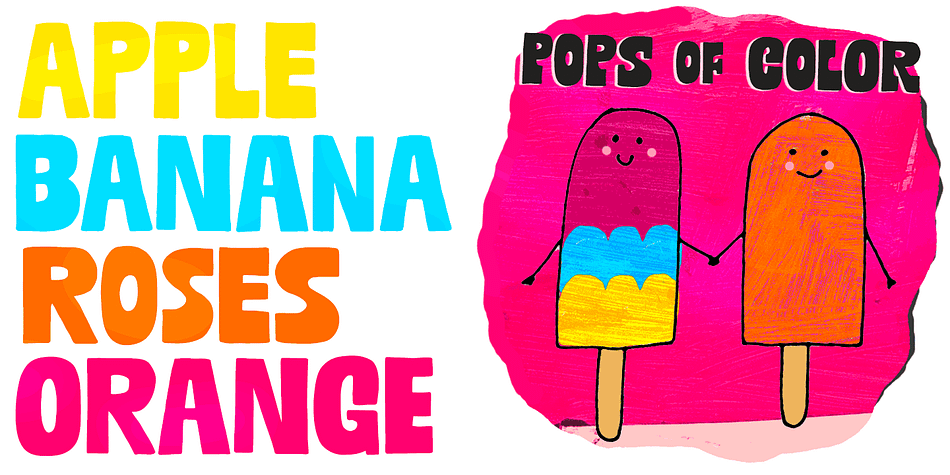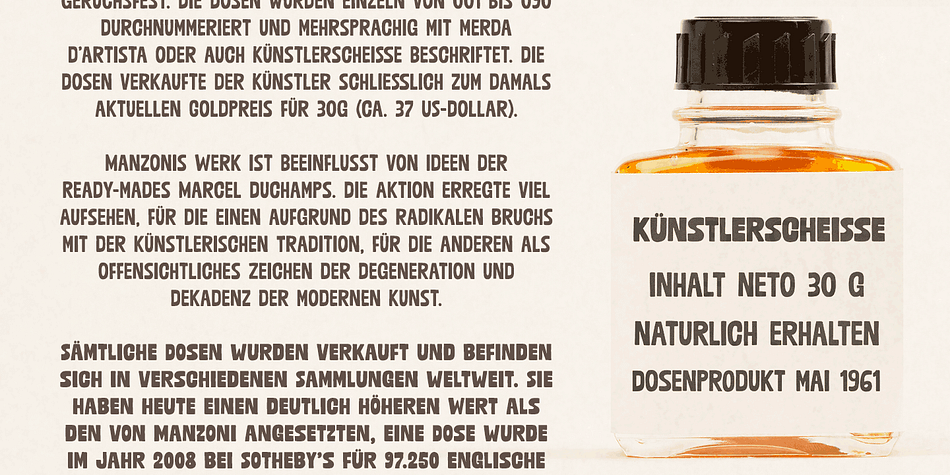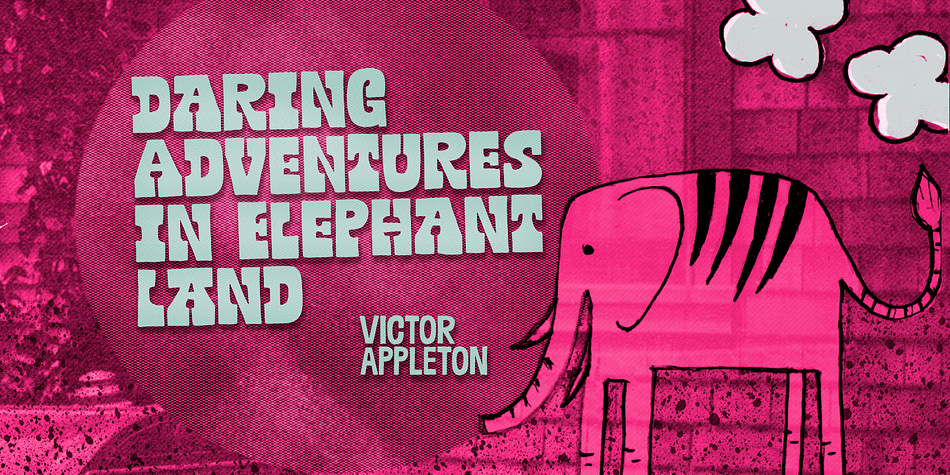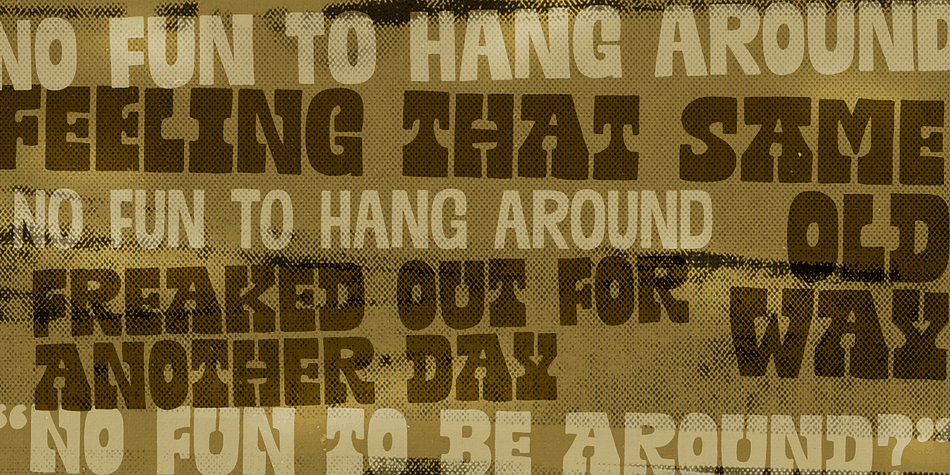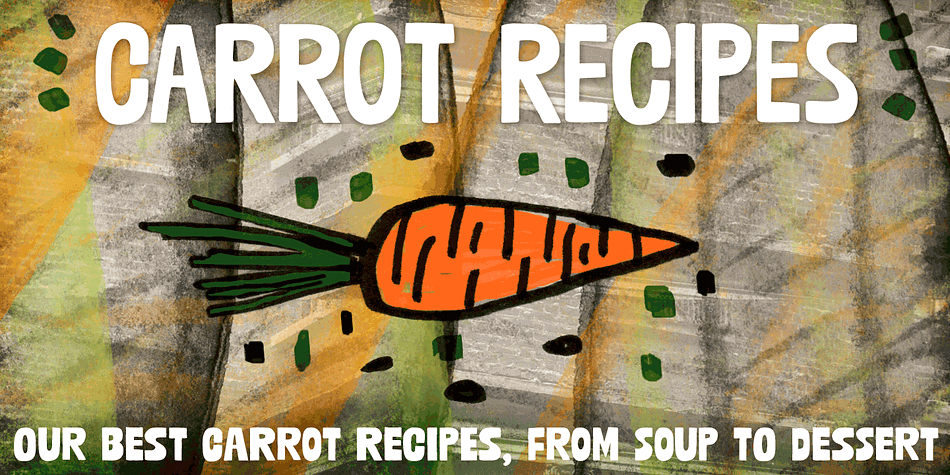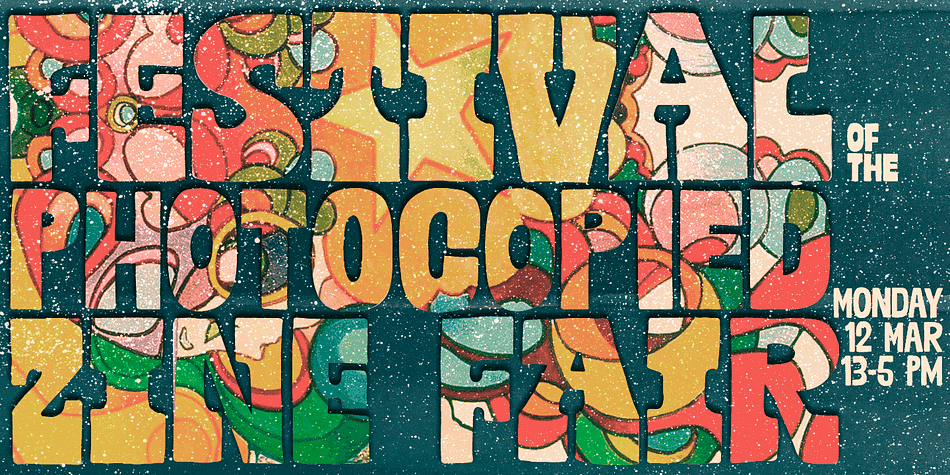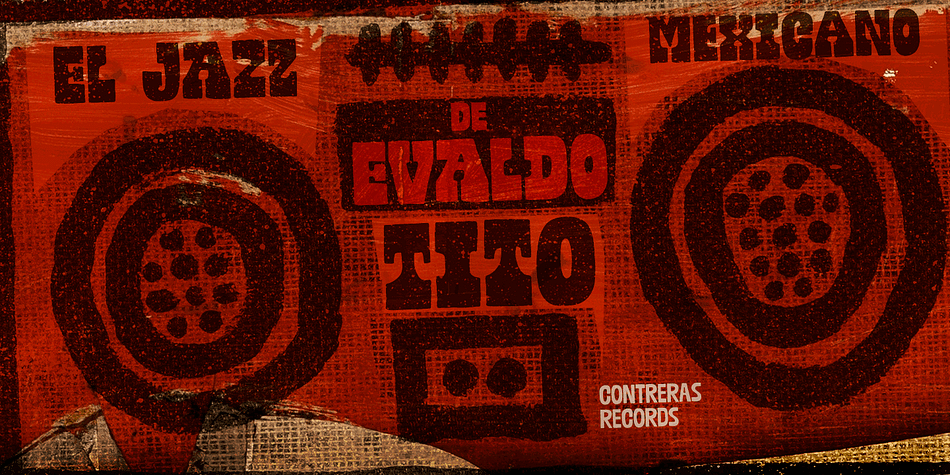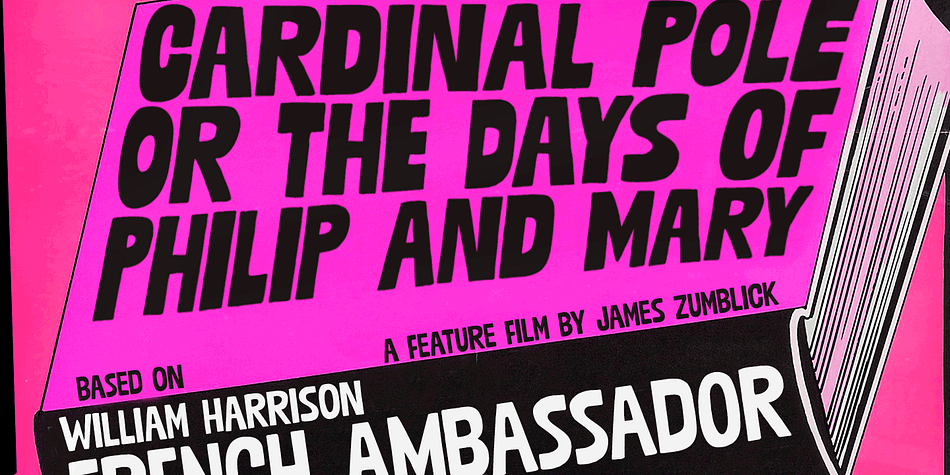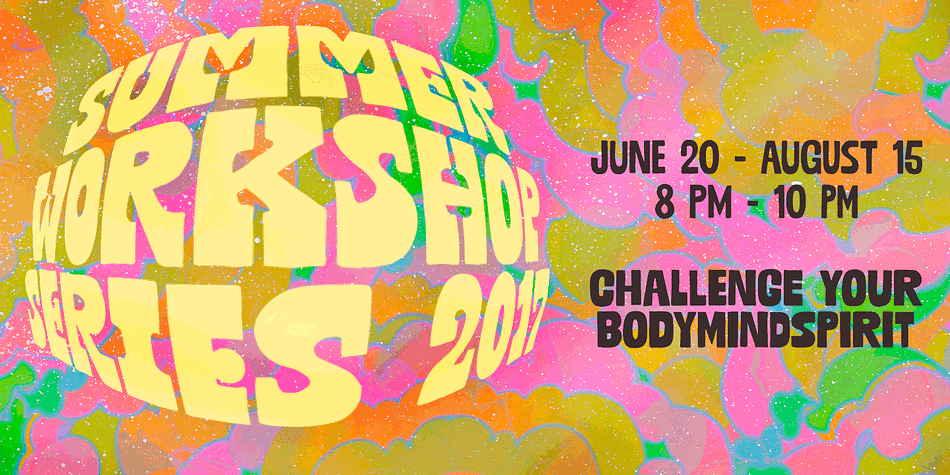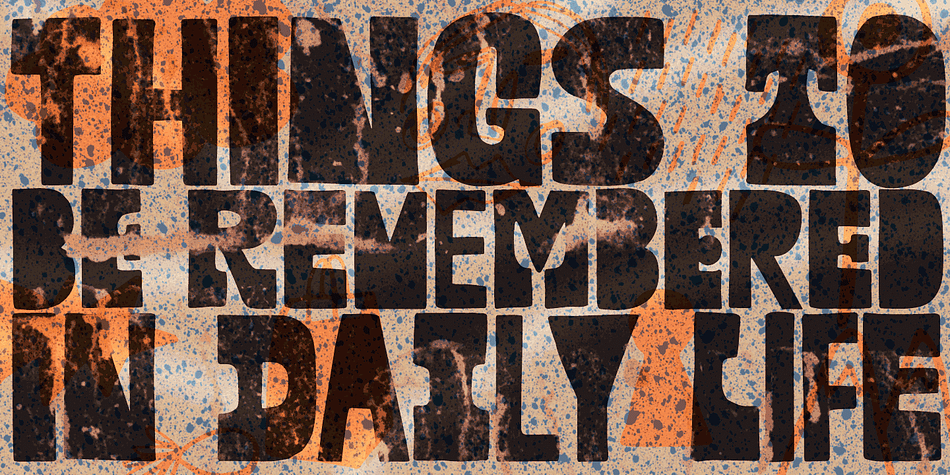
Mudstone is a retro and hand display font family. This typeface has three styles and was published by PintassilgoPrints.
The cool, the sans and the light: Mudstone fonts are proudly packed with nice oddities and quirks. These are definitely fonts for getting noticed, in an affirmative, authentic way.
Mudstone fonts are all caps, each with at least 2 sets of uppercase letters that will cycle at the command of the contextual alternates feature. There are also stylistic alternates in each font, for that extra something.
Critically cool, seriously creative, dangerously unique. Definitely trying? Cool!!